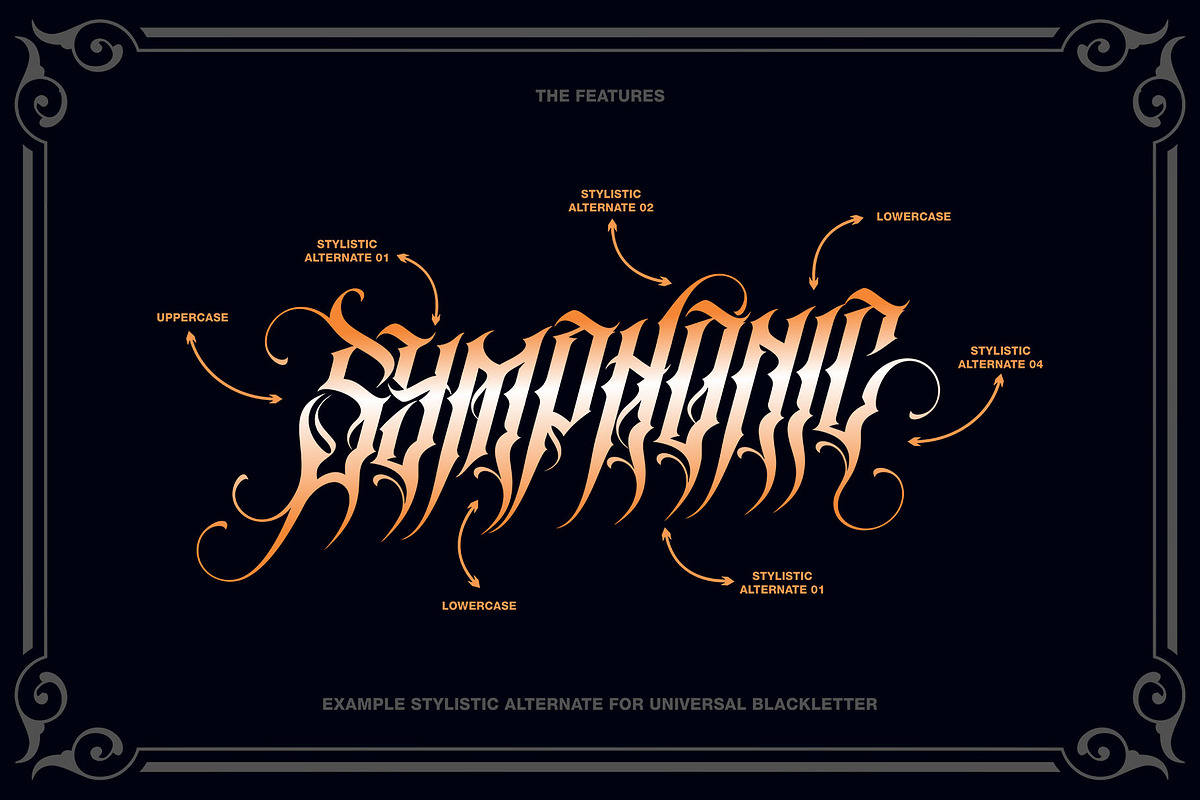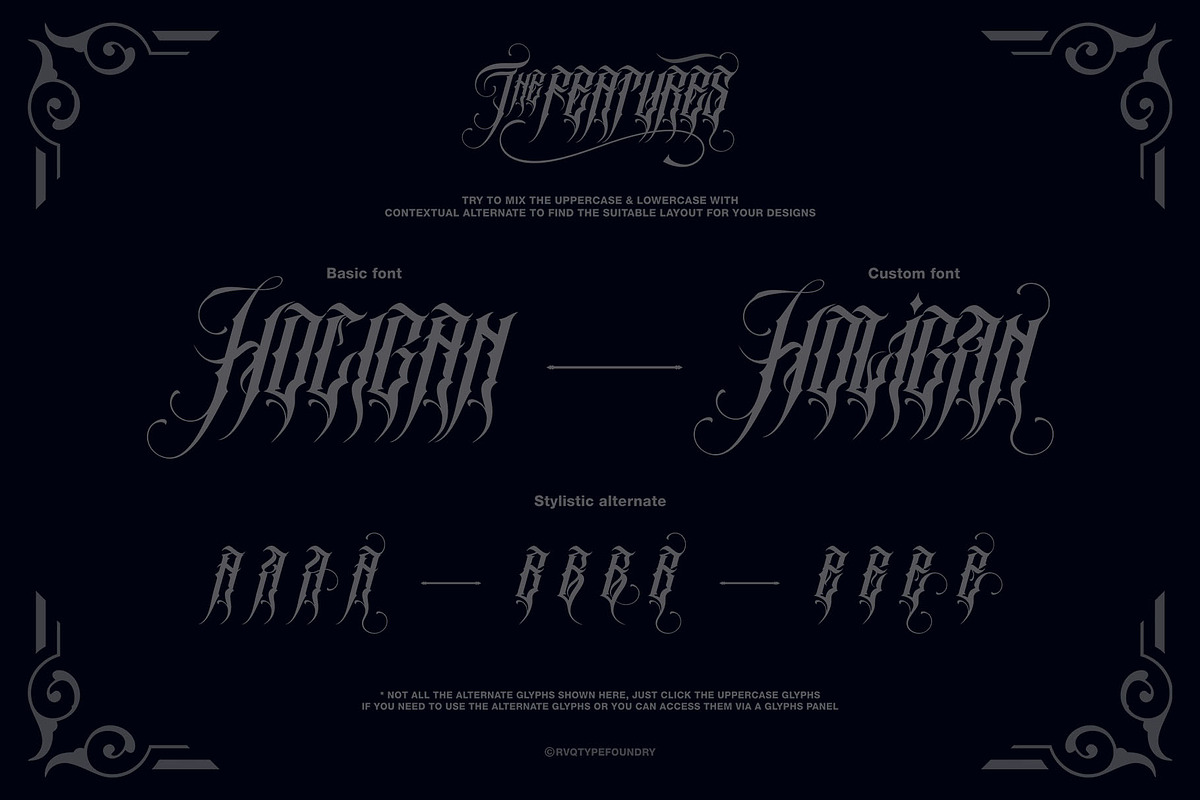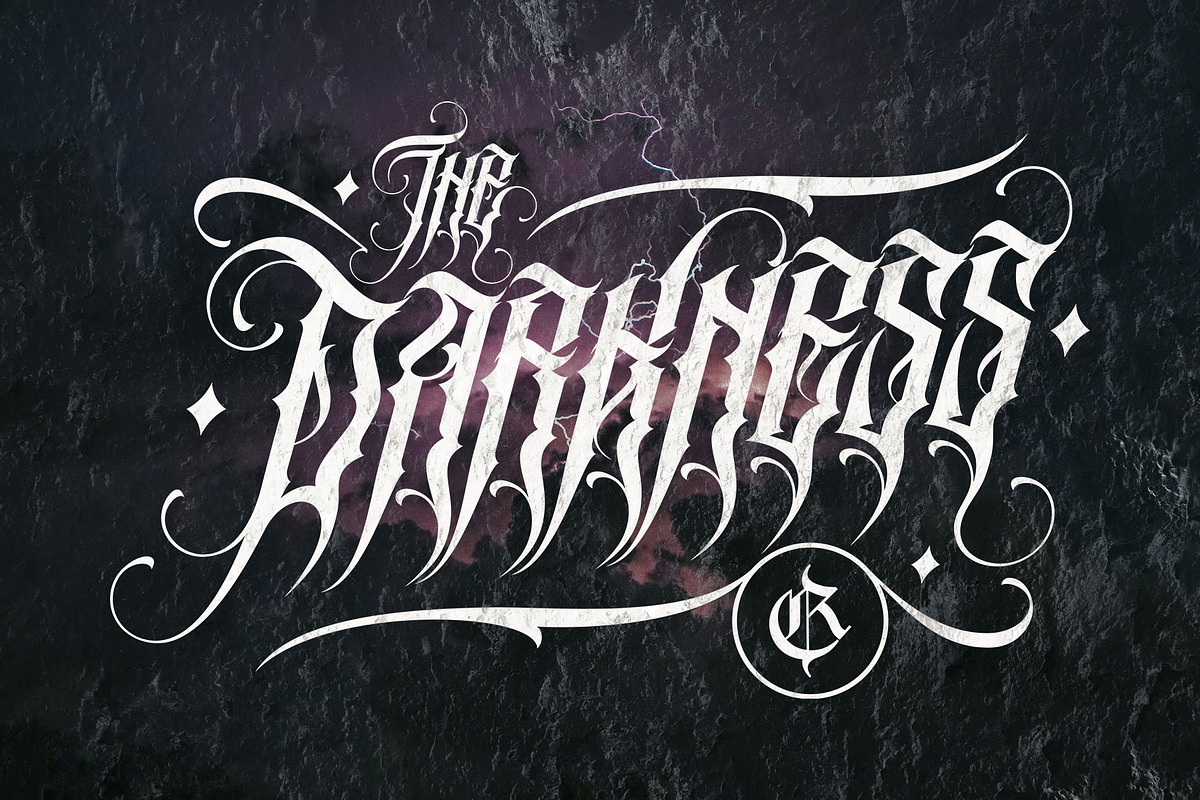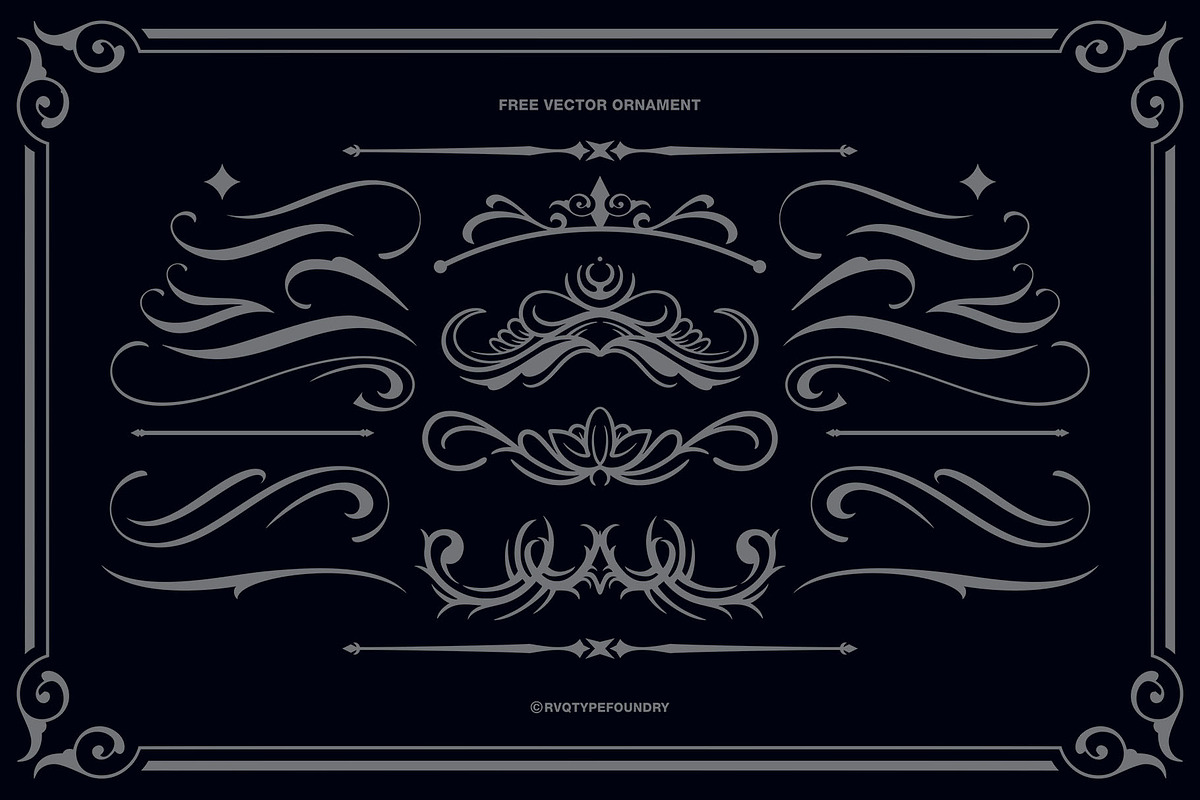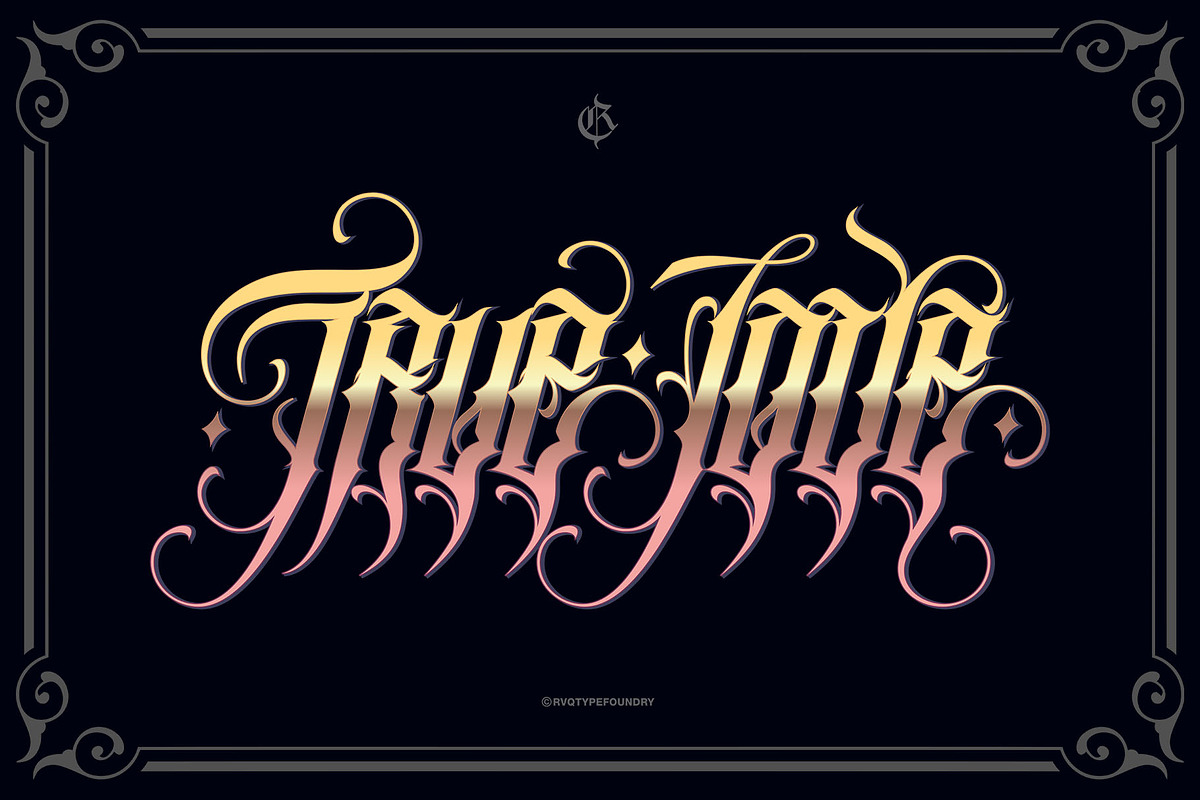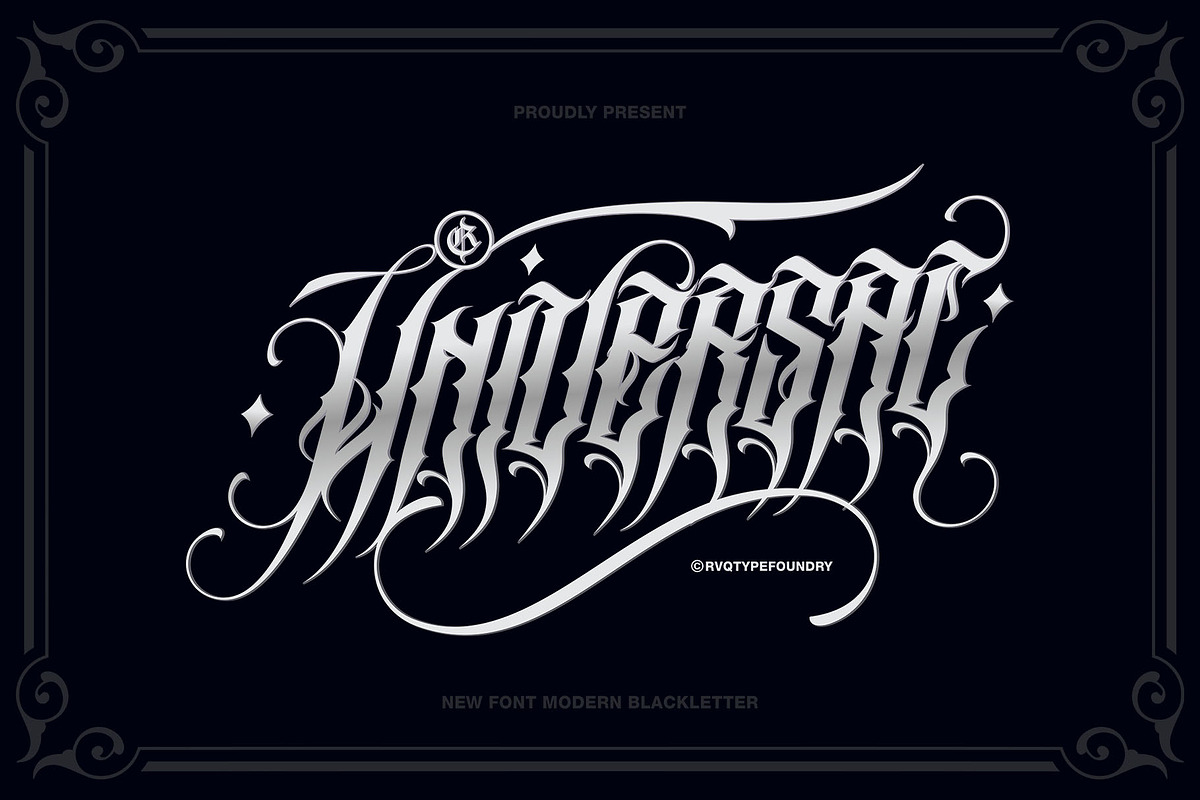
Universal Blackletter
Universal Blackletter is the new font from Rvq typefoundry ,was created as a dual-purpose font To create the beautiful combination, just mix your words with the alternative glyphs. Universal Blackletter includes a full set of capital and lowercase letters, as well as multi-lingual support, currency figures, numerals, punctuation & some extra glyps. Perfect for : for Branding, Logos, Greeting Cards, Stationery Design, Invitations, T-shirts, Apparel, Packaging designs, Posters, Typographic Design, and so much more..
Universal Blackletter
Vector ornament
- Stylistic Alternates.